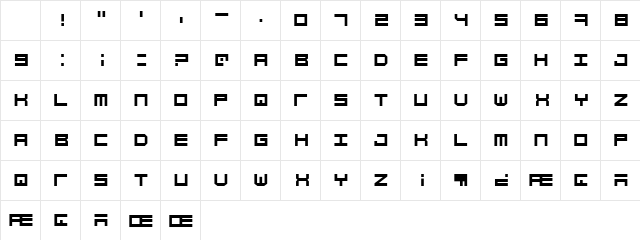
Complete Simply Mono Regular glyph index. Displaying only characters natively supported by Simply Mono Regular font.
Simply Mono uses fixed-width spacing throughout, giving it the structured, systematic character associated with coding environments and technical documentation.
Pro Tip: Use Simply Mono with slightly increased line-height for extended reading - fixed-width spacing can feel dense in longer passages without extra breathing room.